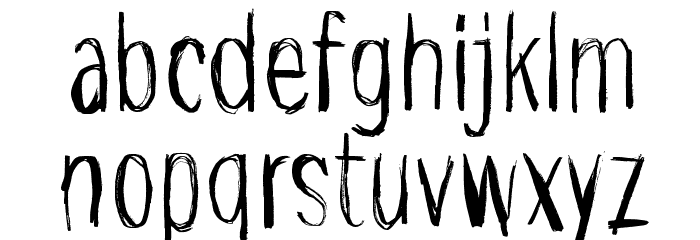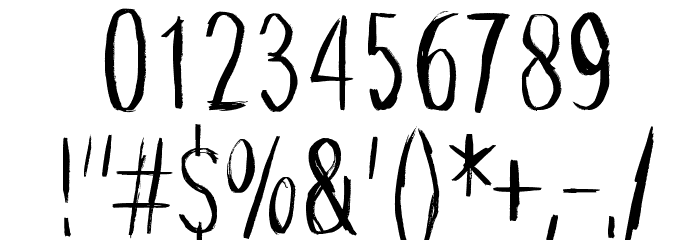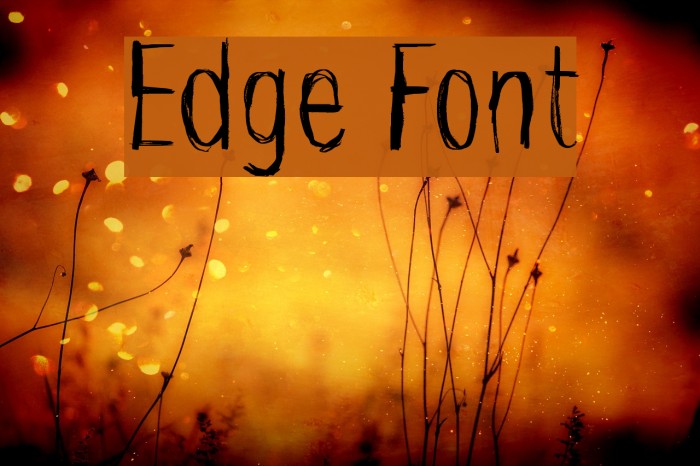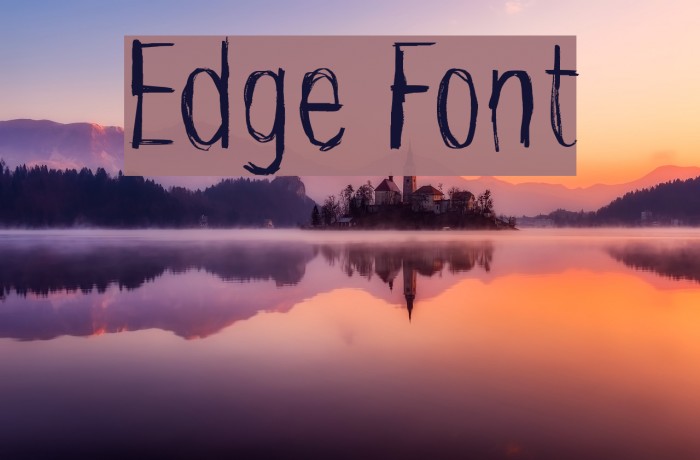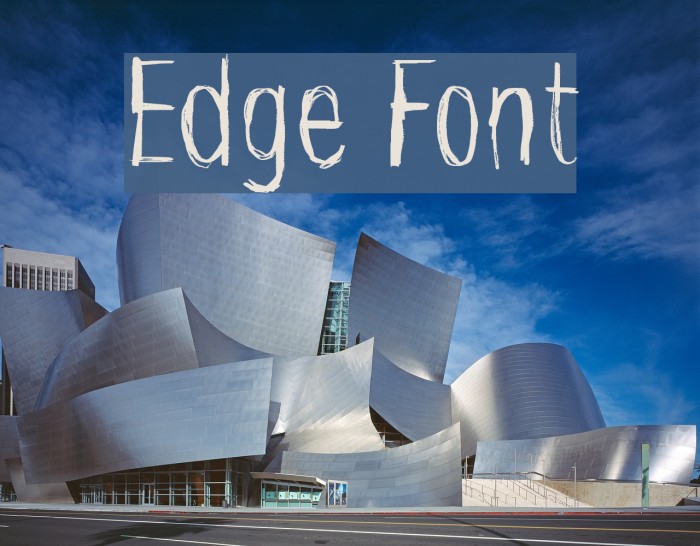
Edge Font
This font features a bold, hand-drawn style with a rough, textured appearance. The characters are unevenly weighted, giving a dynamic and artistic feel. The strokes are irregular, with some letters appearing more elongated and others more compact, creating a sense of movement and energy. The uppercase and lowercase letters maintain a consistent style, while the numerals and special characters add to the font's versatility. The overall look is expressive and slightly chaotic, making it ideal for creative projects that require a bold statement.
A bold, hand-drawn font with a rough, textured appearance and dynamic style.
- Font: Edge
- Proposed Projects: Ideal for posters, album covers, artistic branding, and any project requiring a bold, expressive typeface.